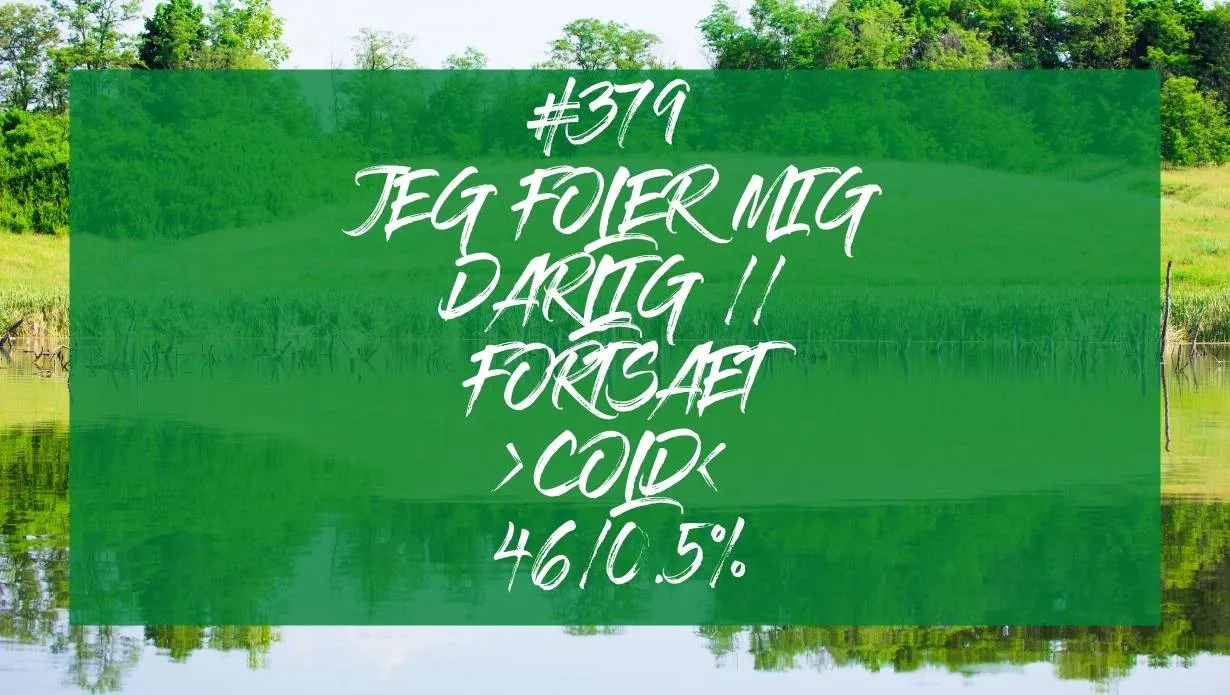
Gloss and Bloom Font is a typeface designed by Clément Nicolle. It is a display font, which means that it is meant to be used for titles, headlines, or other large text. It is an all-caps font with a lot of character. The letters are wide and exaggerated, making them perfect for big, bold statements.
Gloss and Bloom Font Info
| Name | Gloss and Bloom Font |
| Designer | Clément Nicolle |
| Style | Brush |